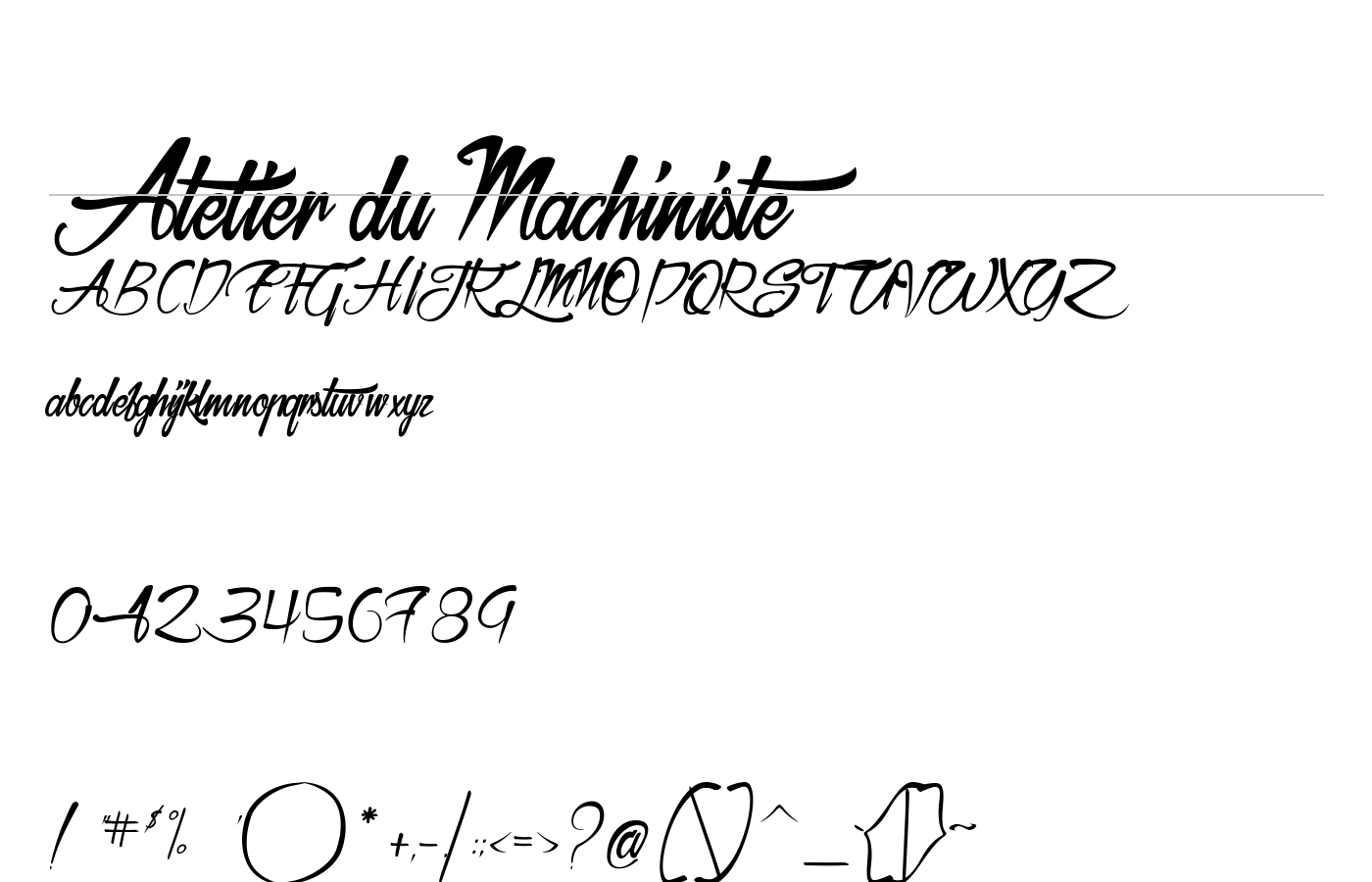
Atelier du Machiniste is a stylish script font with a smooth, flowing design and high contrast strokes that blend elegance with a modern edge. Its cursive letterforms feature graceful flourishes and distinctive swashes, making it perfect for sophisticated branding, invitations, or headlines where a personal, artistic touch is desired. This font brings a refined yet dynamic personality, ideal for creative projects that want to convey elegance with a contemporary flair.
Atelier du Machiniste Font
About Atelier du Machiniste Font